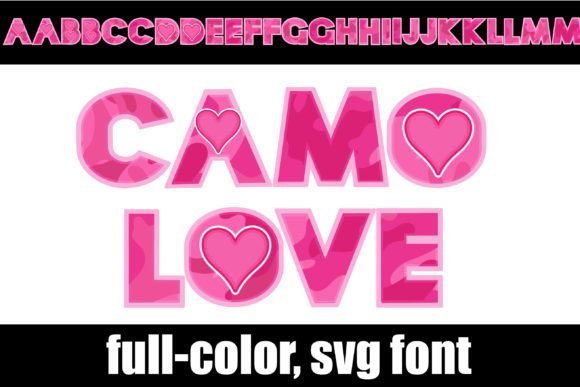
Introduction to Camo Love Font
Camo Love is a colorful and lovely font that will brighten up any design.
Featuring a dynamic mix of bright and contrasting colors, this font adds a modern and fresh touch to any design project, making it perfect for branding, advertising, and more It is also PUA encoded which means you can access all of the glyphs and swashes with ease.
Key Features of Camo Love Font
Why Choose Camo Love Font?
Camo Love Font offers exceptional quality and versatility, making it a valuable addition to your design toolkit. Whether you’re creating for personal projects or commercial use, Camo Love Font delivers professional results.